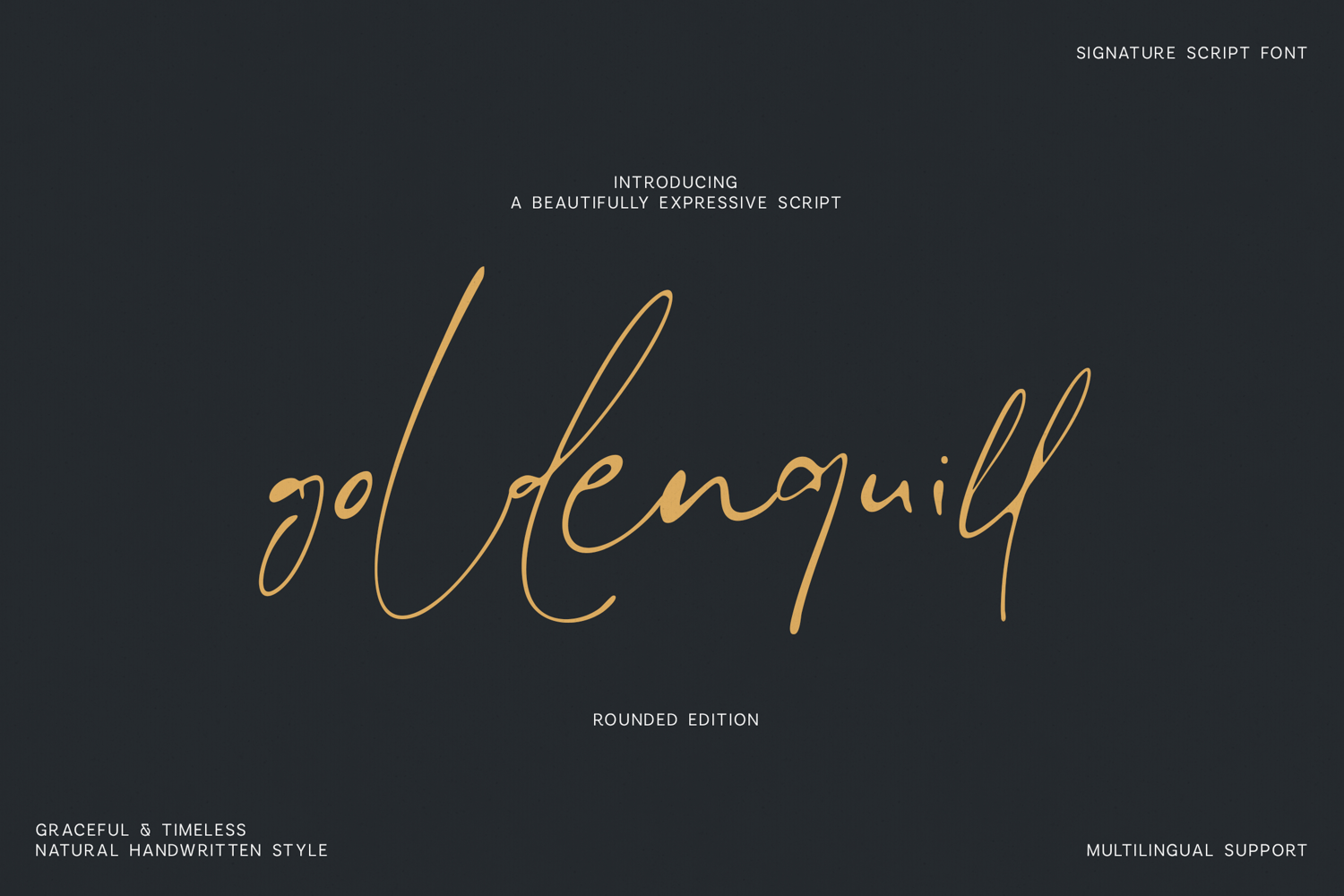
Glenquill Rounded Elegant Signature Script Font
Introducing Glenquill, an elegant signature script font designed to bring a refined handwritten touch to your creative projects. Inspired by natural pen movement and authentic signatures, Glenquill combines graceful flowing strokes with a clean, modern aesthetic, making it the perfect choice for luxury branding, logos, wedding invitations, fashion editorials, packaging, social media, photography, beauty brands, and premium stationery.
Whether you're creating a sophisticated logo, a stylish brand identity, elegant product packaging, or eye-catching marketing materials, Glenquill delivers a timeless handwritten look that feels professional.
Perfect for• Luxury Branding & Visual Identity
• Logos & Signature Marks
• Wedding Invitations & Stationery
• Fashion & Beauty Brands
• Social Media Graphics
• Editorial Design & Magazines
• Product Packaging & Labels
• Quotes, Posters & Print Design
• Smooth Natural Letterforms
Designed with versatility in mind, Glenquill pairs beautifully with serif and sans serif fonts, making it an excellent choice for modern branding systems, elegant typography, and high-end creative work. Its authentic handwritten style adds warmth, sophistication, and personality to every design while maintaining excellent readability across both print and digital media.